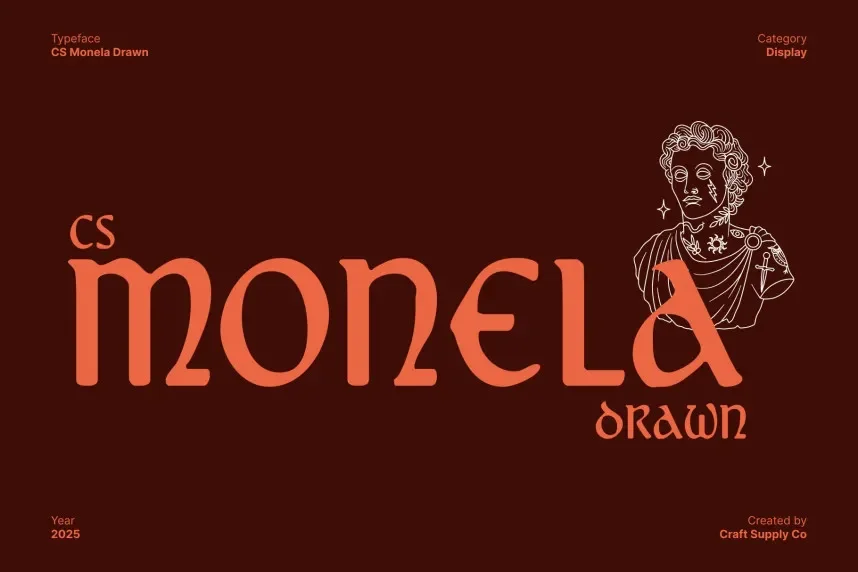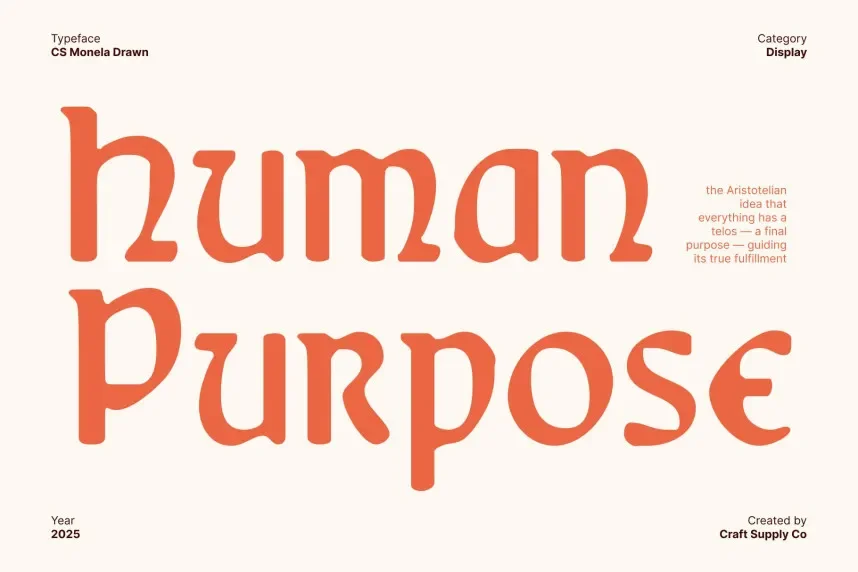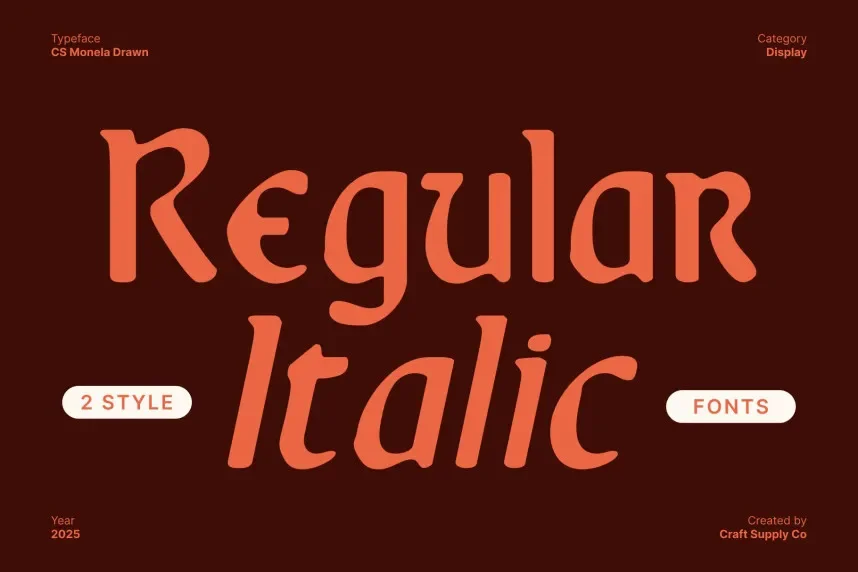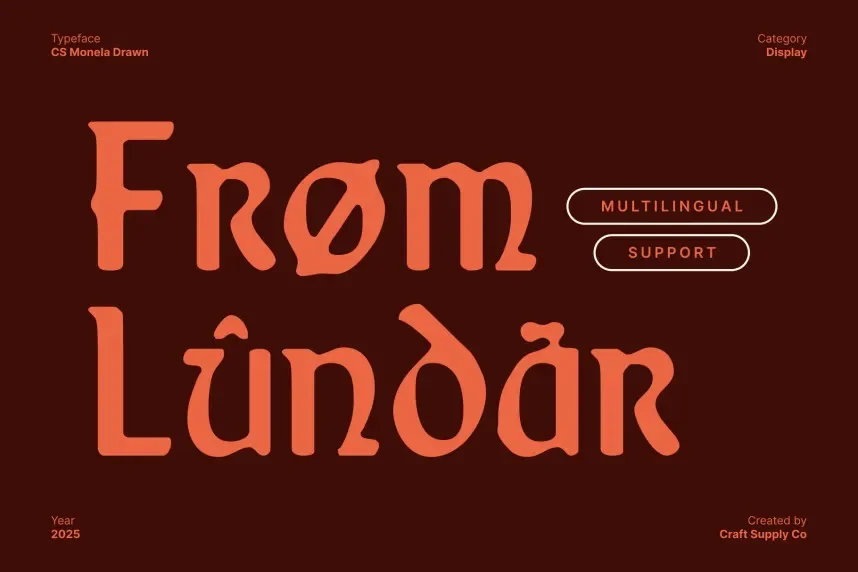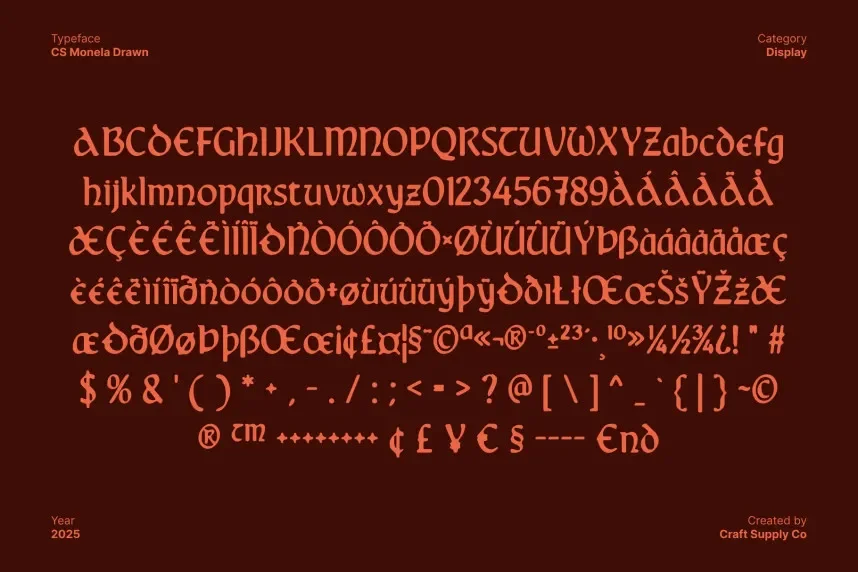
CS Monela Drawn Font helps designers create unique, elegant designs that still maintain readability. It’s a perfect choice for those needing a hand-drawn aesthetic while keeping the text clear and legible.
CS Monela is a hand-drawn script font with smooth, flowing strokes and delicate, rounded edges. The font has a refined, artistic look, making it suitable for more sophisticated design projects that still require a creative touch.